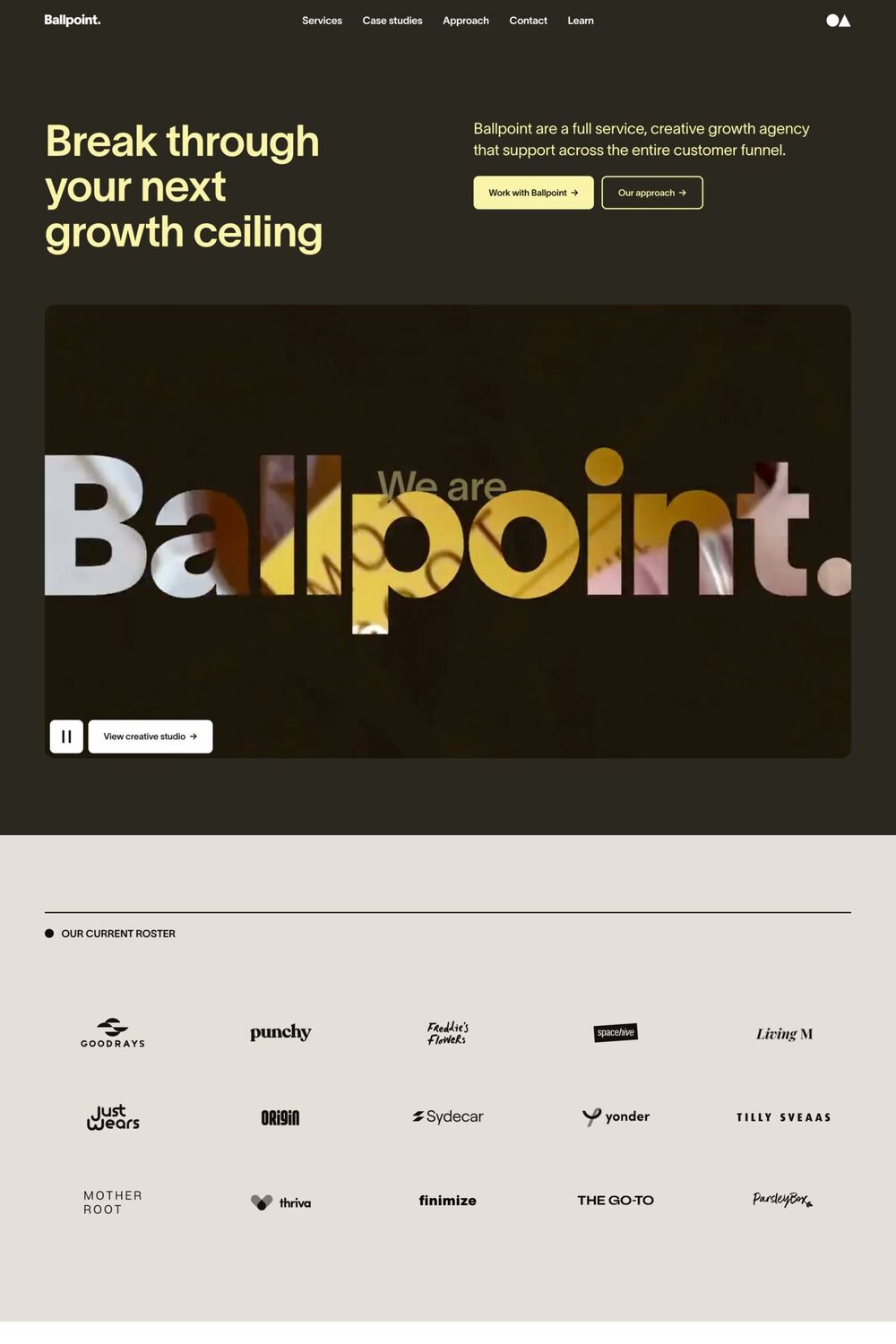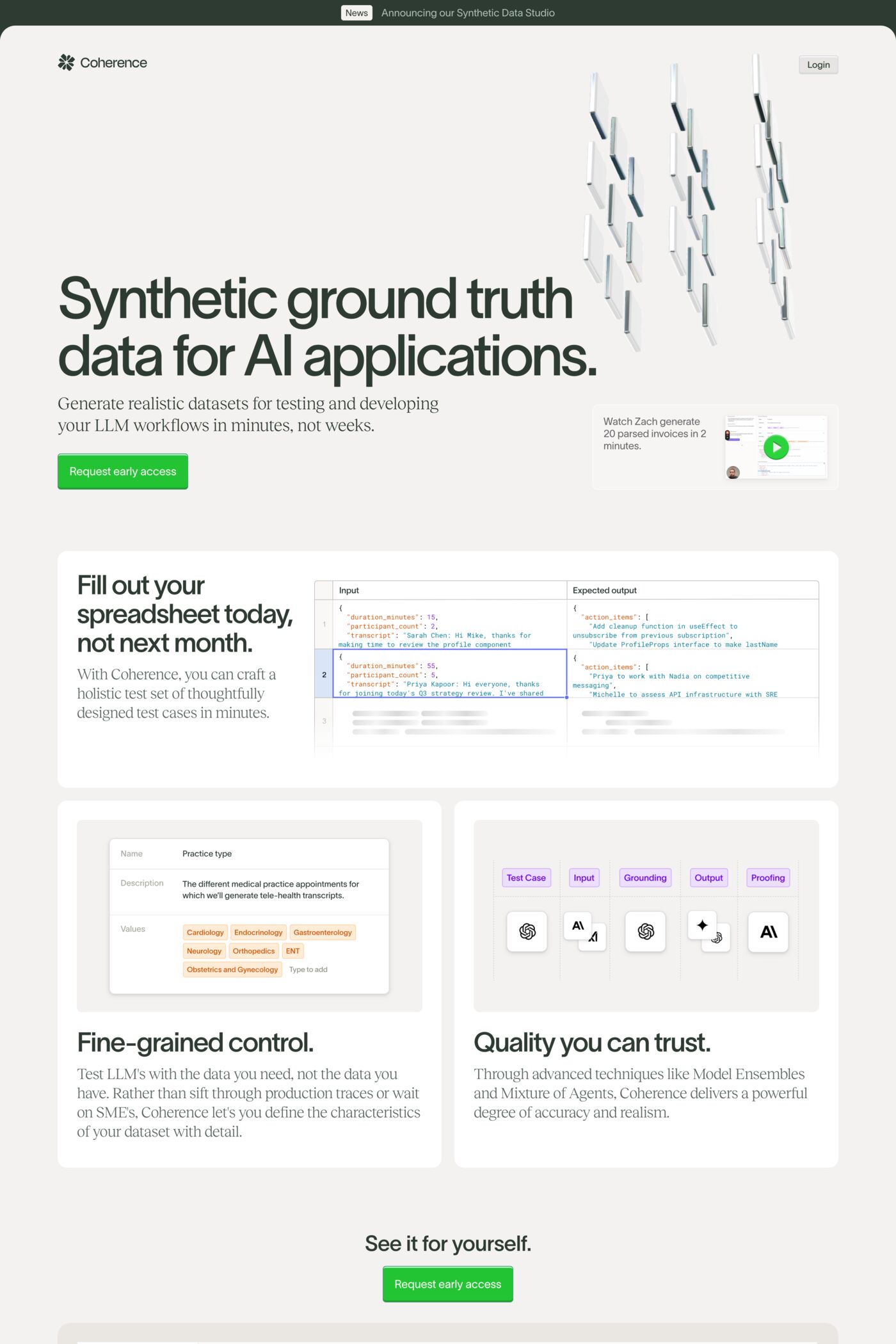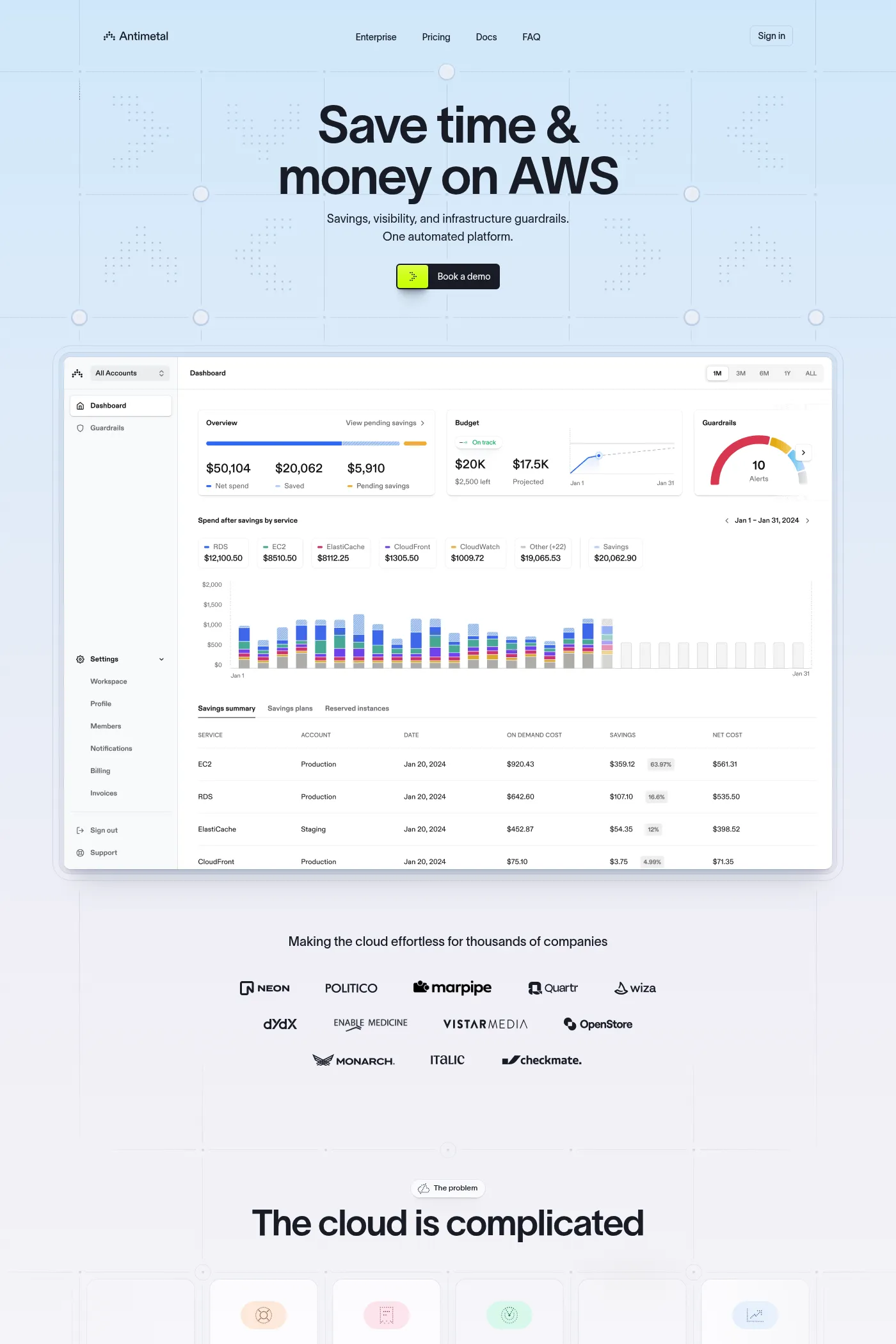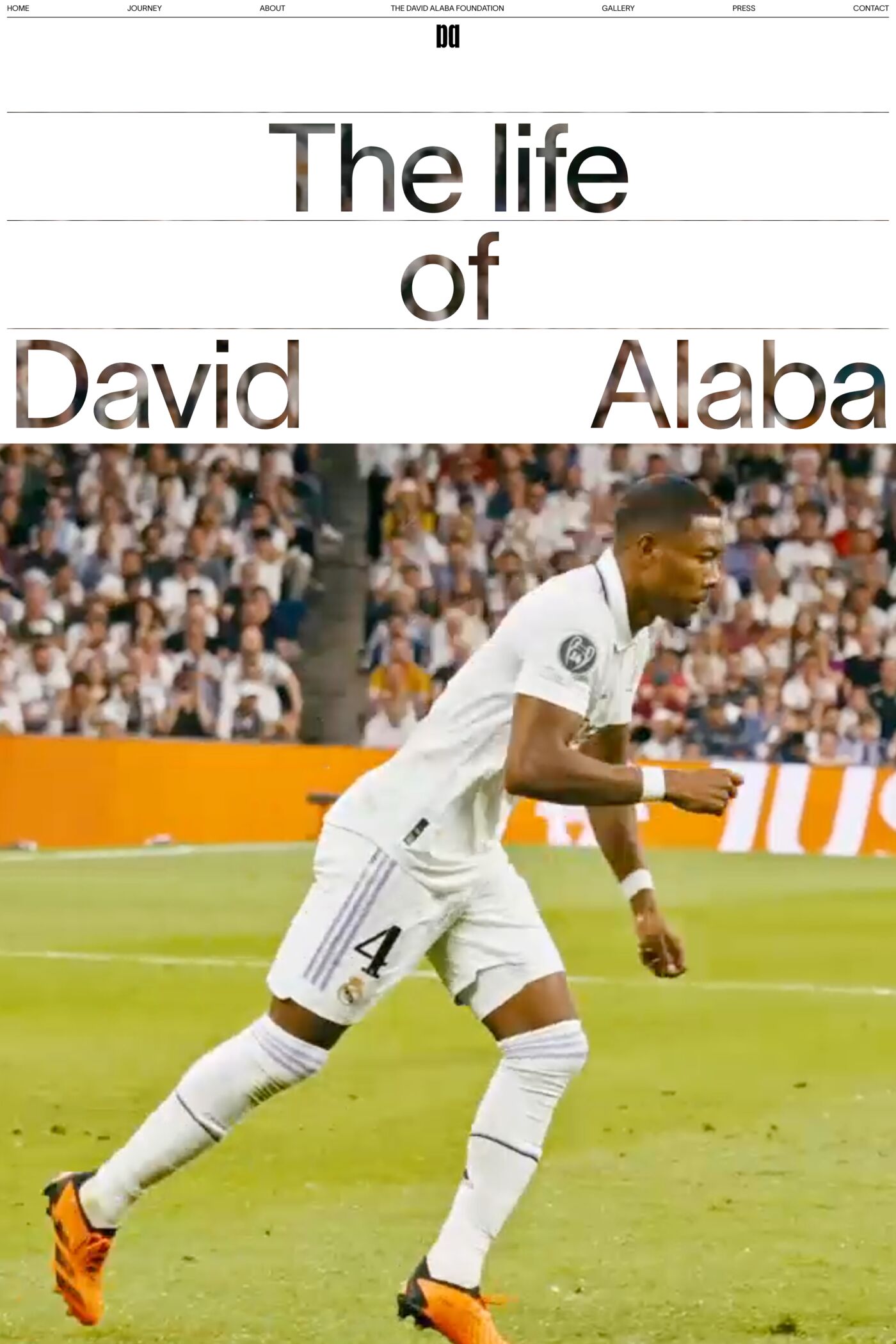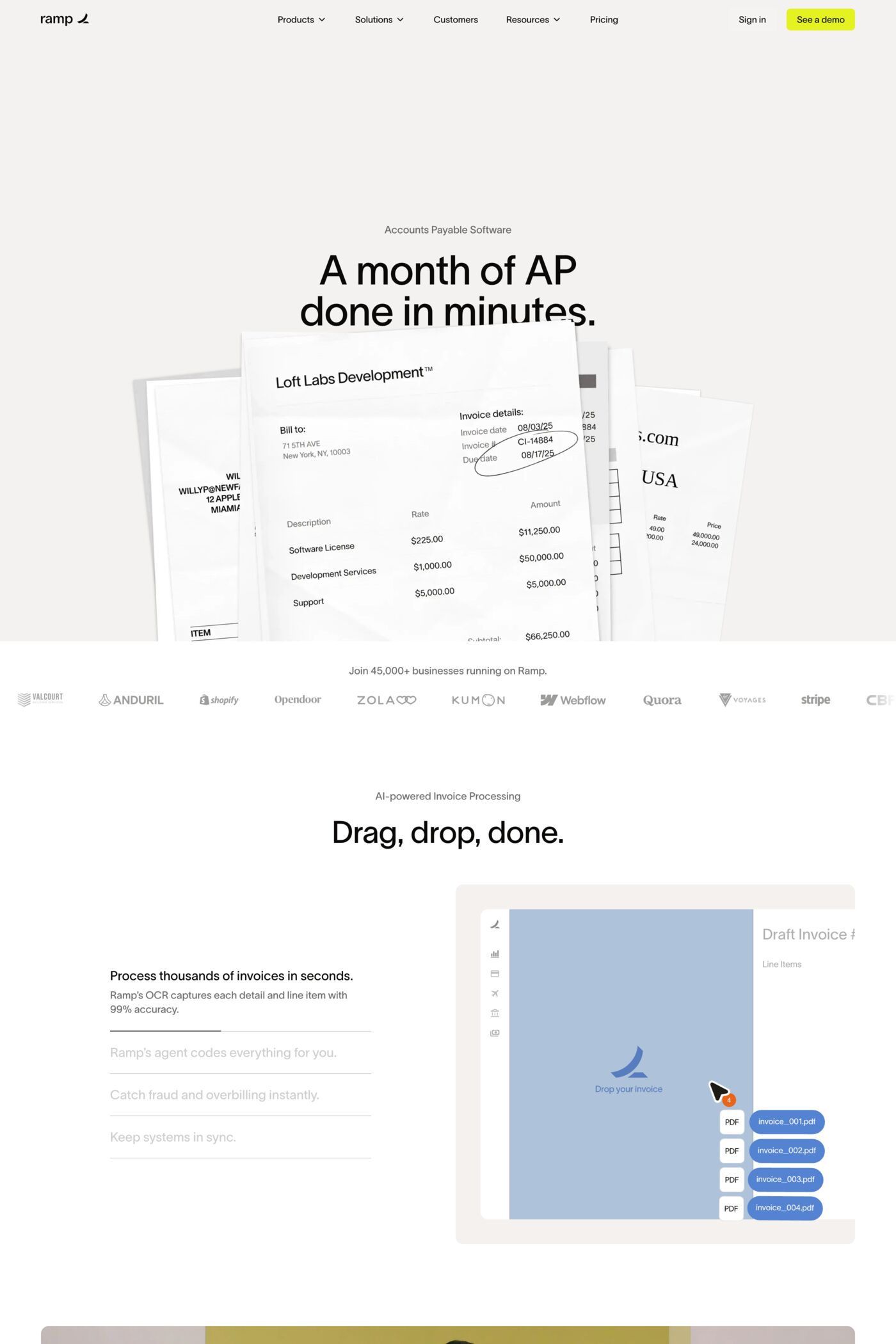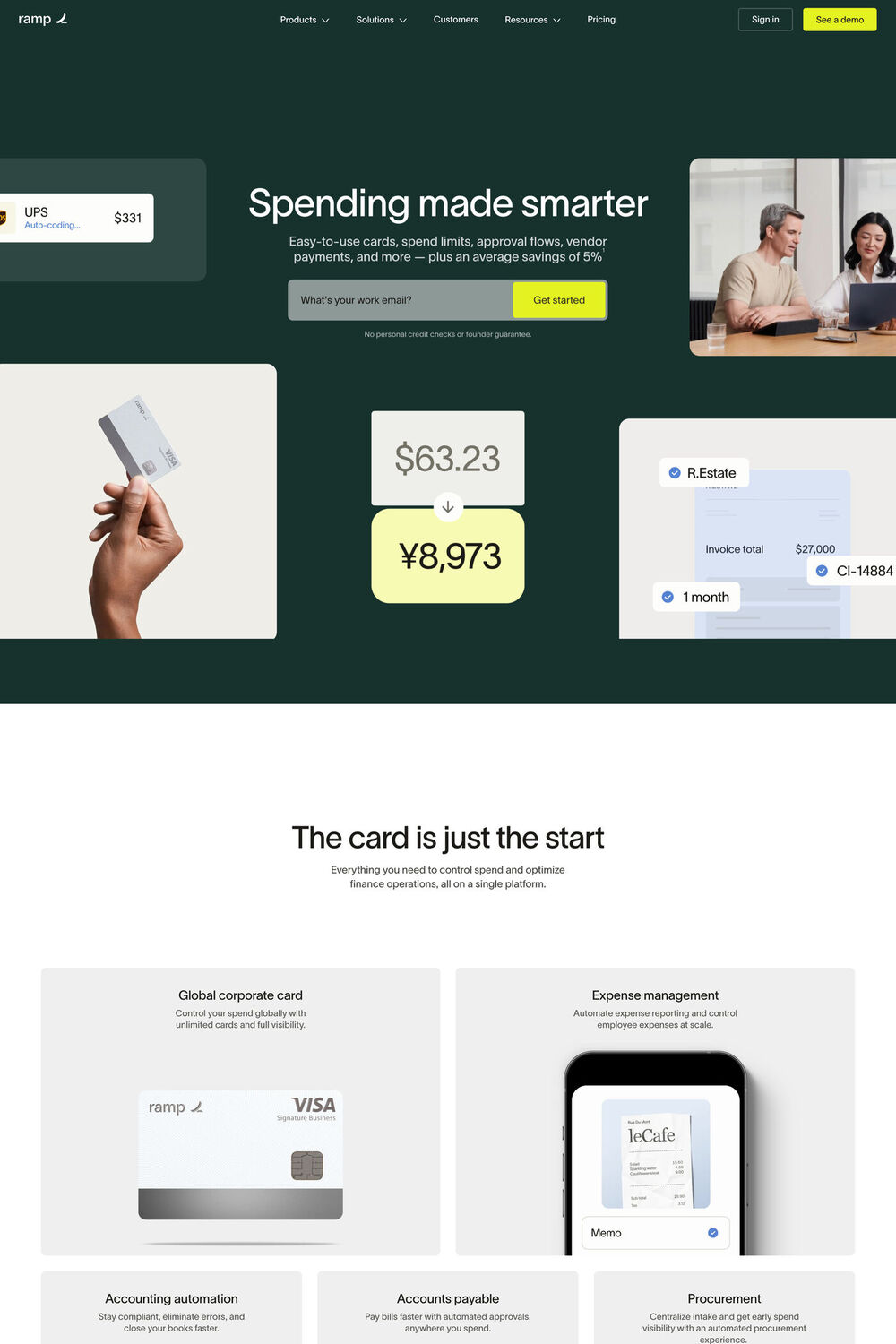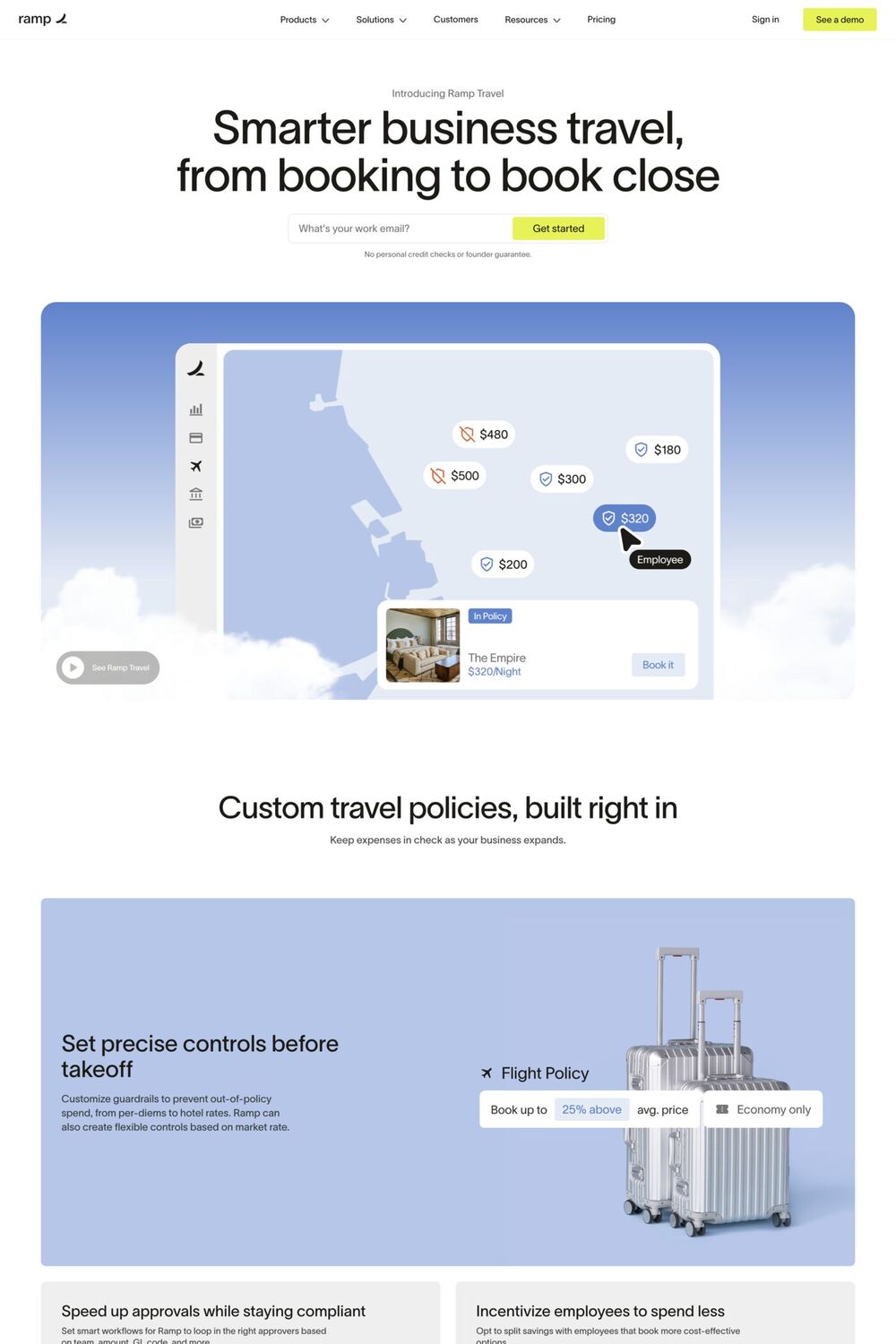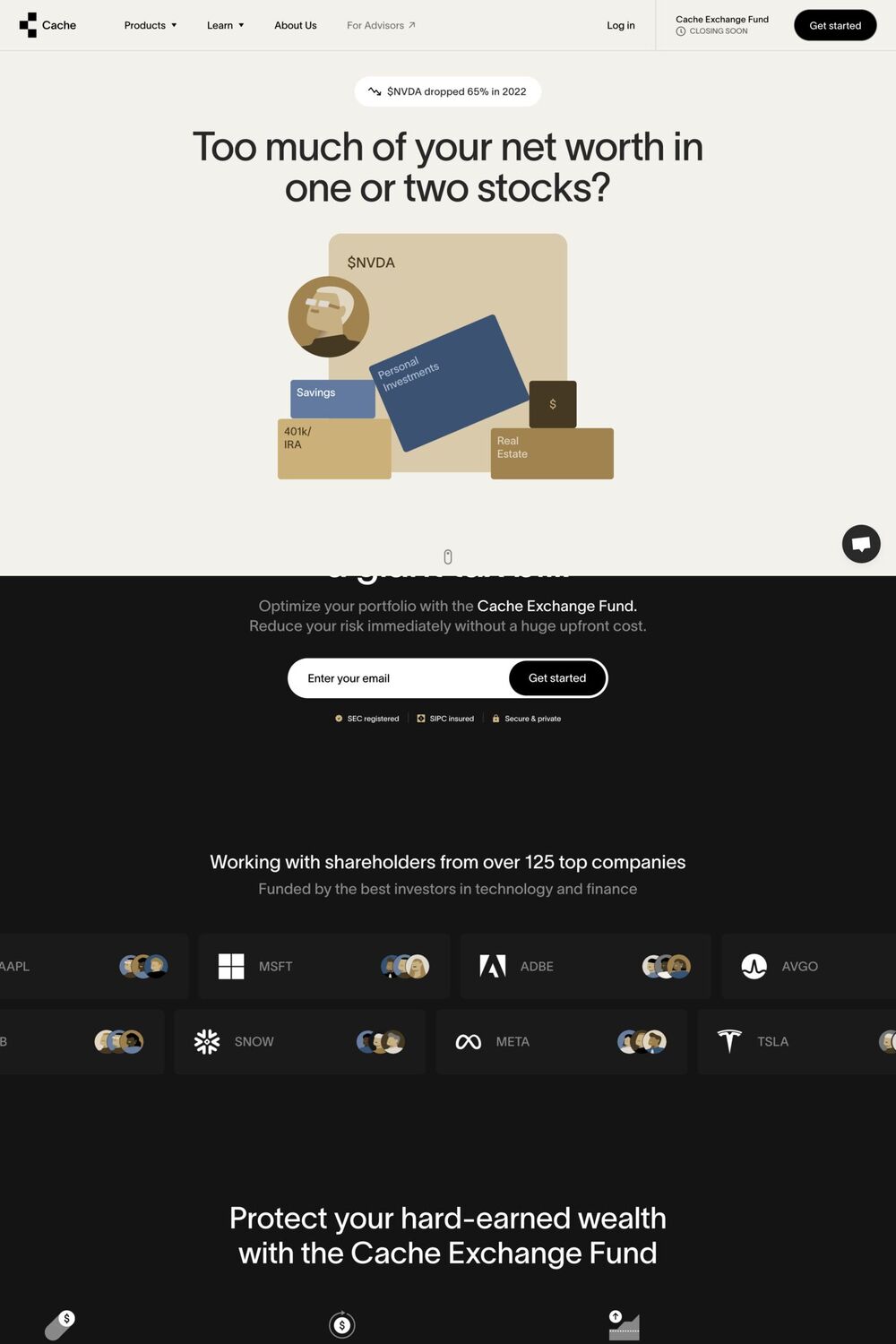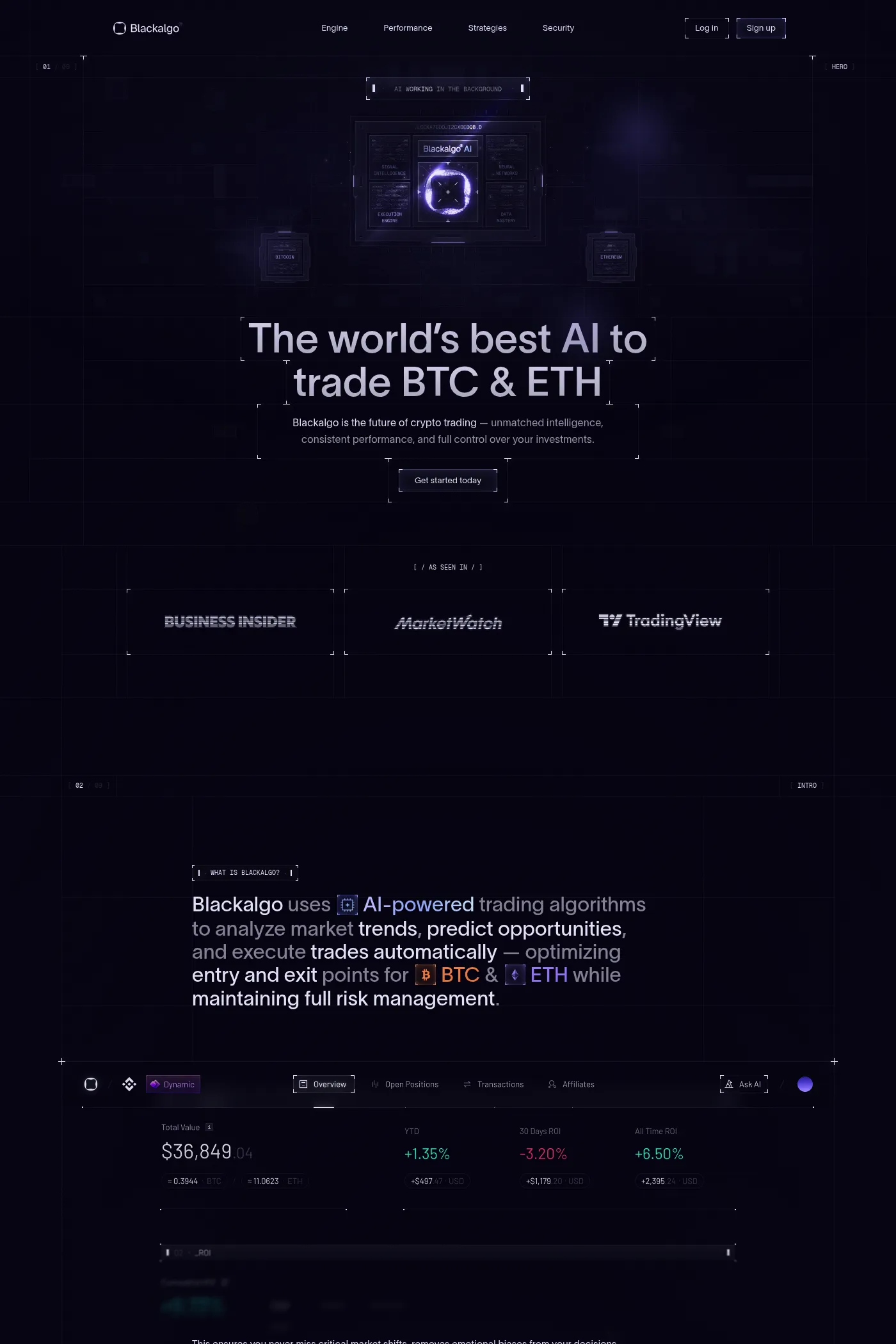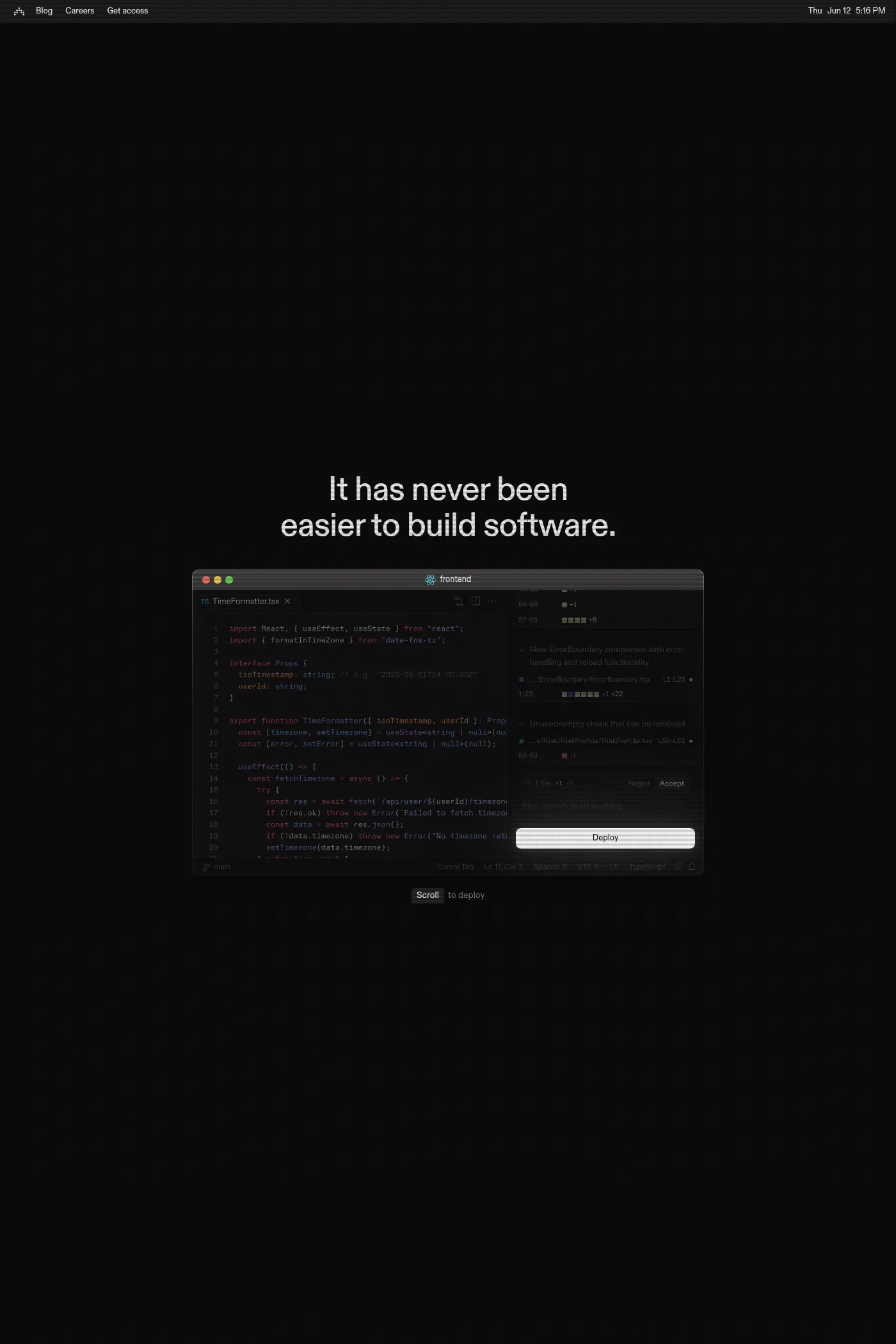
Lausanne is a sans-serif typeface from WELTKERN®.
Lausanne is an extraordinarily sophisticated sans serif font with an ultra-organic aesthetic, very legible in small sizes and full of refined details in display sizes.